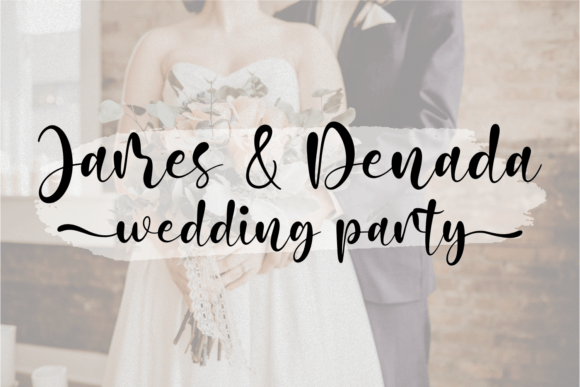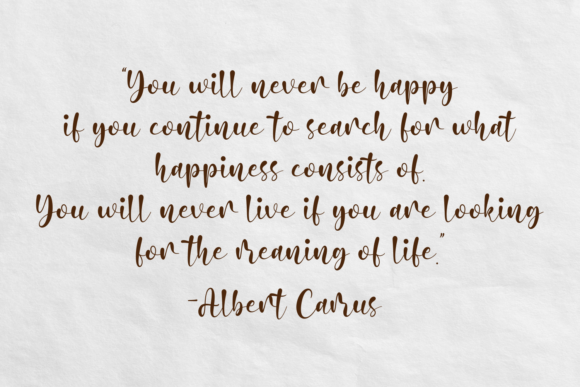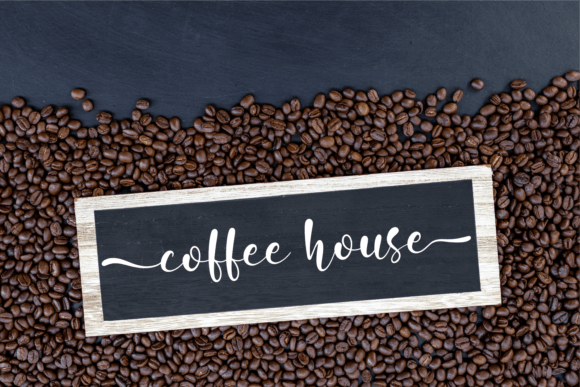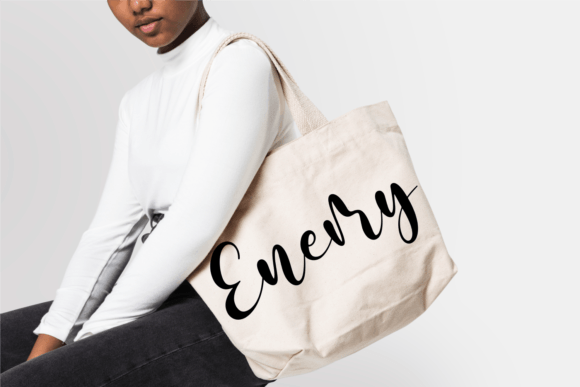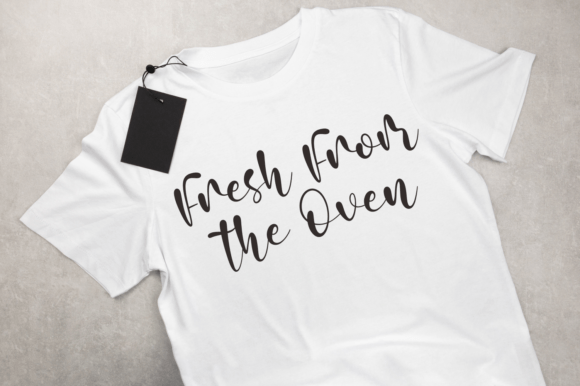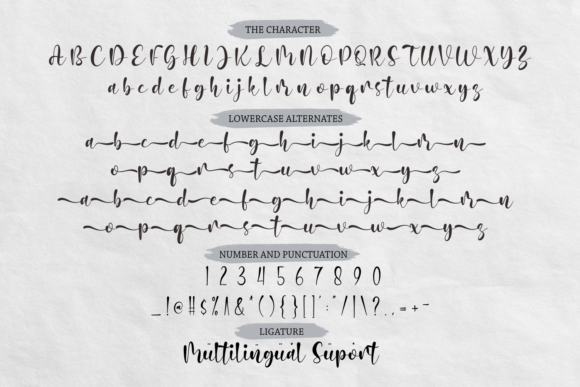
Introduction to Madine Style Font Font
Fonts play a crucial role in design, and the Madine Style Font font is a typeface that brings both character and versatility to any project. Whether you’re working on a branding project, a website, or a print design, the Madine Style Font font offers a unique style that can elevate your work.
Madine Style is a fancy and elegant handcrafted font.
Make your projects dance with this lovely and cute font wherever you use it Use it for your headings, logos, ads, printed quotes, packaging, and even your website or social media branding.
Key Features of Madine Style Font Font
Why Choose Madine Style Font Font?
The Madine Style Font font is more than just a typeface – it’s a design tool that helps you communicate your message with style and clarity. Its unique character set and versatile design make it suitable for a wide range of applications, from elegant invitations to bold headlines.
With its carefully crafted letterforms and balanced proportions, the Madine Style Font font ensures readability and visual appeal across all mediums.
What makes Madine Style Font font special?
The Madine Style Font font stands out with its unique design, exceptional readability, and versatility across various design applications.